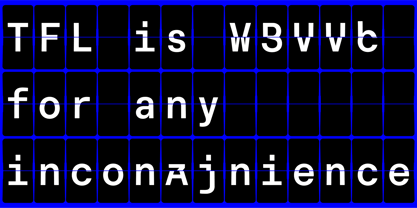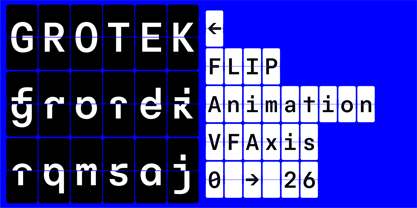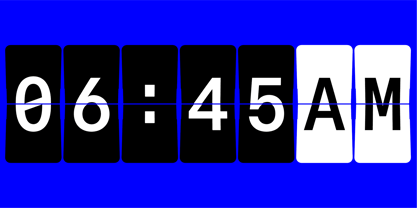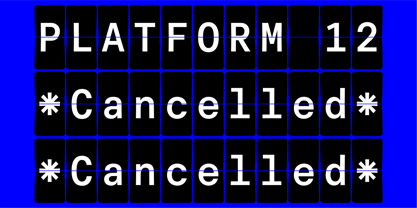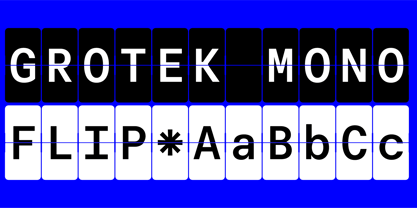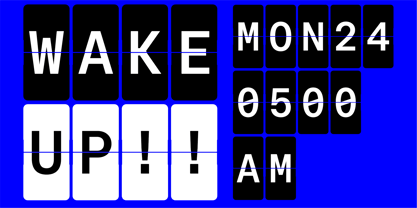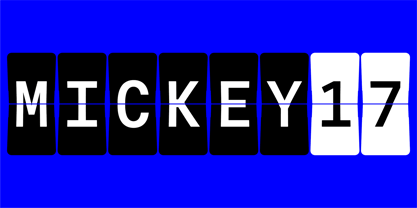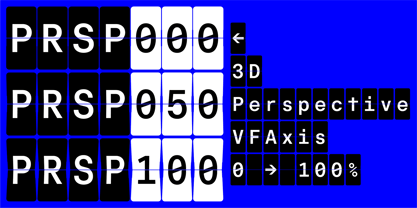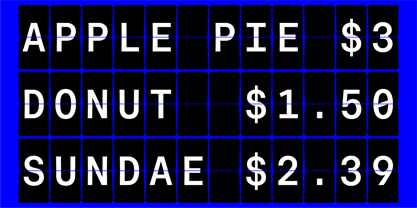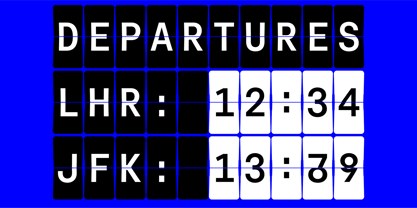
Grotek Mono Flip VF
by Experimetal by Lettersetal
The Grotek Mono Flip VF Font Family was designed by Matt Burvill and published by Experimetal by Lettersetal. Grotek Mono Flip VF contains 3 styles and family package options. More about this family
Grotek Mono Flip is a Variable Vont inspired by classic split flap displays.
Based on Grotek Mono Medium, it features an animated flip axis where the top and bottom halves snap into place and a 3D perspective axis that gives a real, mechanical feel. Split flap displays have been everywhere—from train stations and airports to the iconic LOST countdown timer and even the style hints in Mickey 17—showing their lasting relevance. With three layers (default, foreground, and background), it lets you play with color while keeping a timeless, functional design.